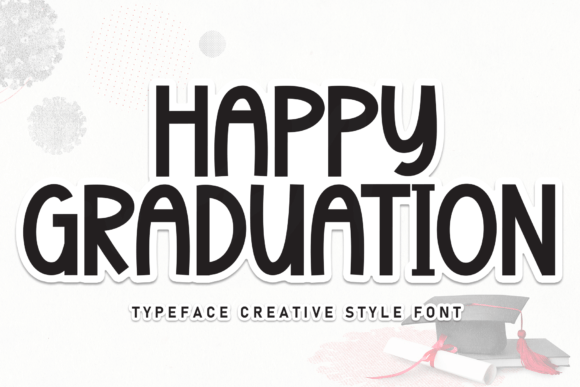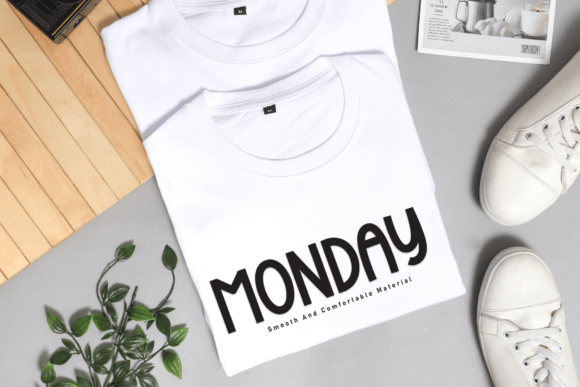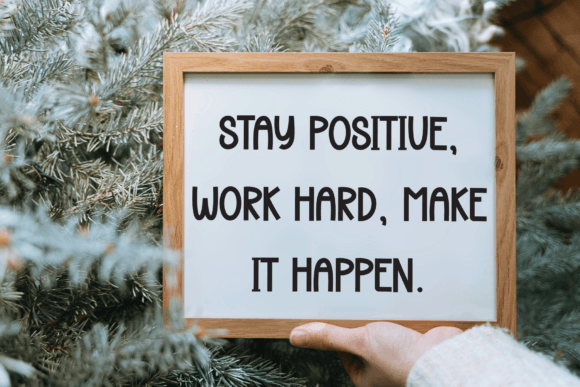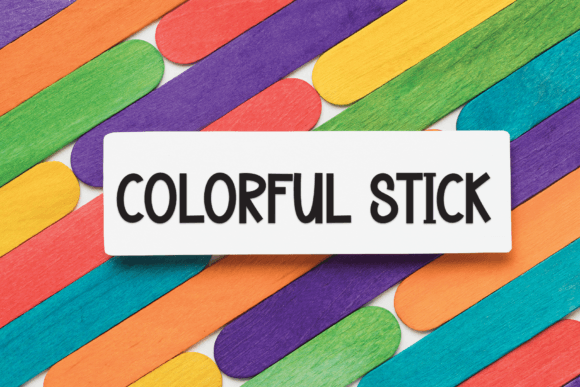
Happy Graduation Font
About the Happy Graduation Font
From logos to headlines, the Happy Graduation Font is the perfect choice for making a lasting impression. Happy Graduation is a sweet and friendly handwritten font. Its natural and unique style makes it incredibly fitting to a large pool of designs. The only limit is your imagination!
Happy Graduation’s friendly, handwritten style works exceptionally well for projects needing a warm and approachable feel. Ideal applications include invitations, greeting cards, short marketing materials, social media graphics, and children’s book illustrations. It would be less suitable for body text or lengthy documents due to its informal nature and potential for reduced readability.
The font’s core personality is undeniably cheerful and optimistic. To maintain this, pair it with a clean sans-serif like Lato for a balanced contrast, or a playful script font like Pacifico for a more whimsical feel. For a more sophisticated look, consider pairing it with a delicate serif like Playfair Display. Avoid pairing it with very geometric or overly serious typefaces, as they would clash with its lighthearted essence.
Using Happy Graduation in branding is best suited for small businesses, particularly those in education, events planning, or children’s products. Its informal nature makes it unsuitable for corporate branding or high-end luxury products requiring a more polished aesthetic.